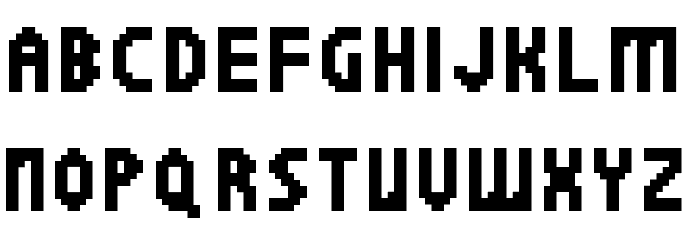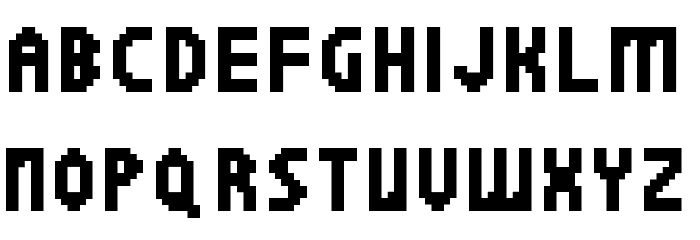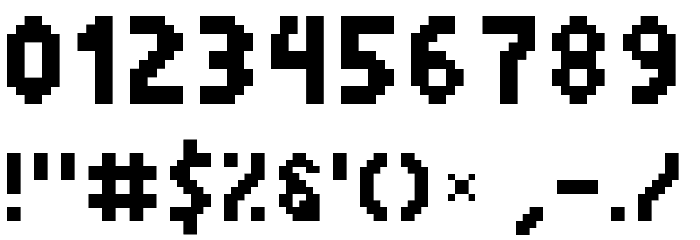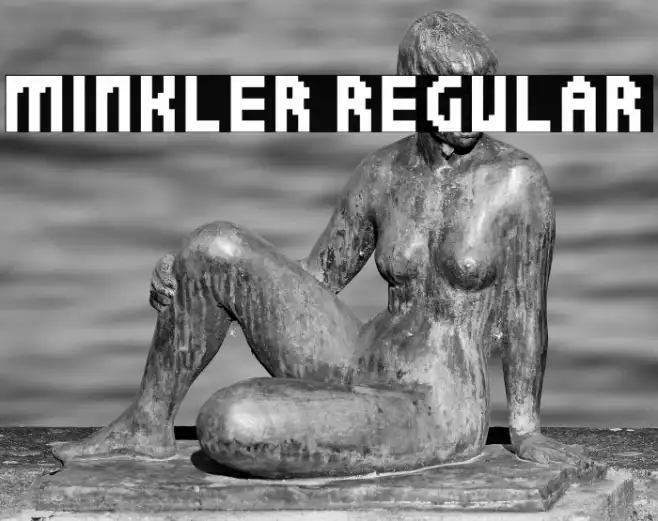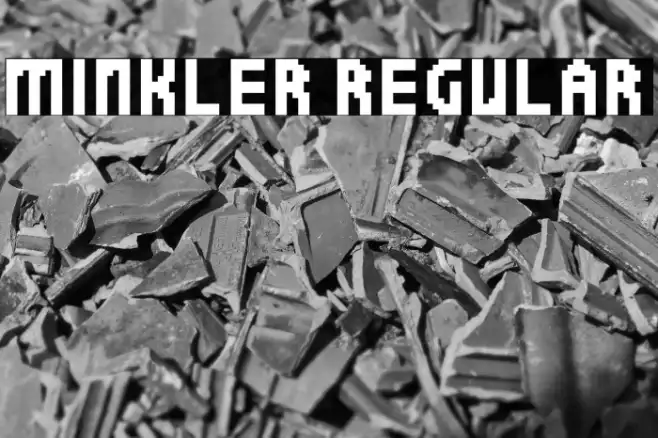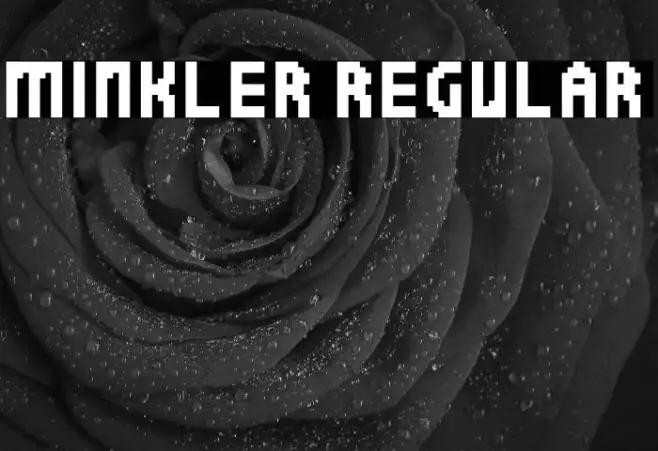
Minkler Regular Font
This font features a bold, pixelated style reminiscent of early digital and arcade game typography. Each character is constructed with a blocky, geometric design that emphasizes clarity and simplicity. The uniformity in stroke width across all characters gives it a cohesive and consistent appearance. The uppercase and lowercase letters maintain a similar height, enhancing the font's uniform look. The numerals and special characters are crafted with the same pixelated aesthetic, ensuring a harmonious visual experience. This font's retro digital vibe makes it ideal for projects that aim to evoke nostalgia or a tech-inspired theme.
- Font: Minkler Regular
- Proposed Projects: Ideal for video game design, retro-themed posters, digital art projects, and tech-inspired branding.
- Overall Style: Retro, Digital